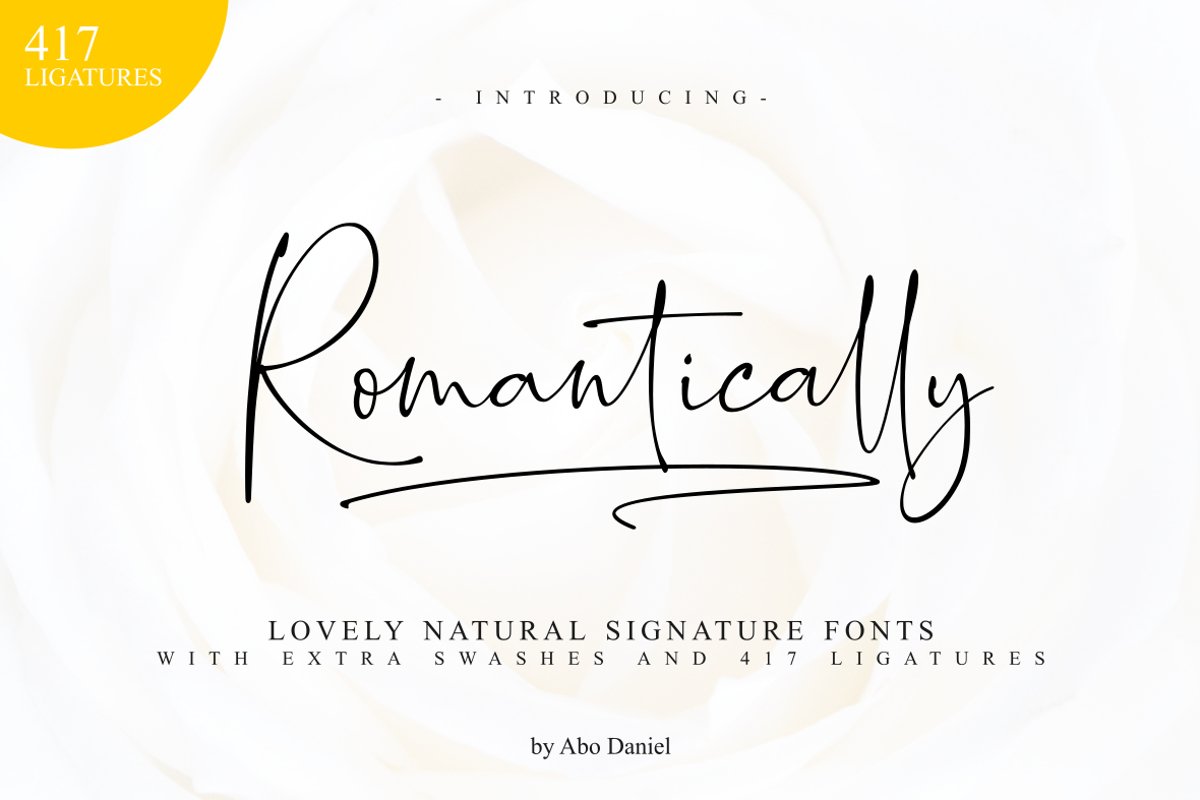
Romantically - Lovely Signature -
introducing
ROMANTICALLY -the lovely natural signature font-
It is classy, it is naturally, it is beauty signature fonts...
- FANTASTIC 417 LIGATURE
I was created 417 ligatures to keep this font looks naturally,
al
bl cl dl el fl gl hl il jl kl ll ml nl ol pl ql rl sl tl ul vl wl xl yl
zl at bt ct dt et ft  nt ot pt qt rt st tt ut yt all ell att ett itt
ott utt alt elt ilt olt ult atl etl itl otl utl ftl attl ettl ittl ottl
uttl ab bb cb eb ib jb mb nb ob sb ub abb ebb ibb obb ubb abl abh ebh
ibh obh ubh abt ebt ibt obt ubt ah bh ch eh gh hh ih jh mh nh oh ph rh
yh zh ahh ehh ihh ohh uhh ak  ek ik kk ok rk sk uk yk zk akk  cc dd ee
ff mm nn oo pp ss zz am em im om um amm emm imm omm umm amb amh an en in
on un ann inn anb anh ank enh inh anl enl ant ent ar er ir or ur arb
arh erh irh orh urh ark arl erl url art ert fr urt ce co com ay eel iu
ppl erfl Ar Br Cr Dr Er Fr Gr Hr Ir Jr Kr
.............and more as you seen on presentation pictures.
I am also created it for multilingual characters.
àl ál âl ãl äl ål æl œl èl él êl ël ìl íl îl ïl ñl òl ól ôl õl öl ùl úl ûl ül àt át ât ãt ät åt æt ............and more as you seen on presentation pictures.
- SWASHES
Swashes
- MULTILINGUAL SUPPORT
Fonts include punctuations and multilingual support.
Romantically
is perfect for branding, photography, invitations, quotes, watermarks,
advertisements, product designs, labels, and much more!